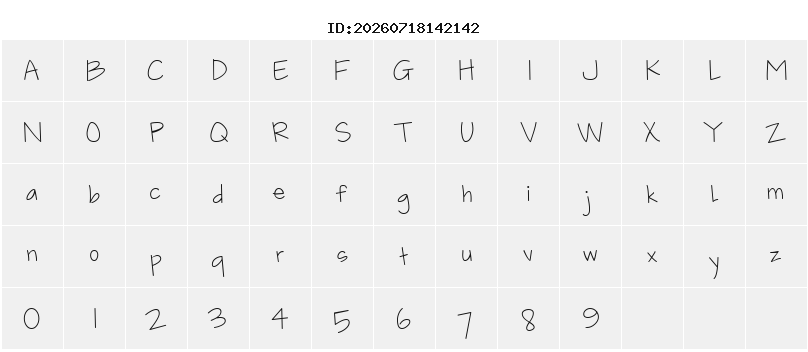
CK Penman Preview
• Font Name: CK Penman
• Full Font Name: CK Penman
About CK Penman.ttf
CK Penman.ttf is a modern, elegant sans-serif font designed for ultimate readability and visual harmony. Perfect for branding, headlines, web design, and print materials.